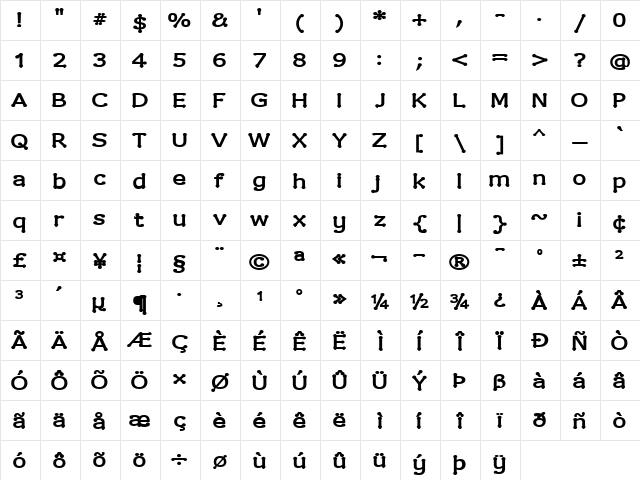
Drummon Bold
| Designer | Graham Meade |
Design Context for Drummon Typeface
Drummon offers clean, dependable letterforms without strong stylistic allegiance, making it a practical choice for designers who need flexibility. Its bold stroke weight gives it real presence on the page.
Pro Tip: Use Drummon in both headline and body roles to test its range before committing to a single application.